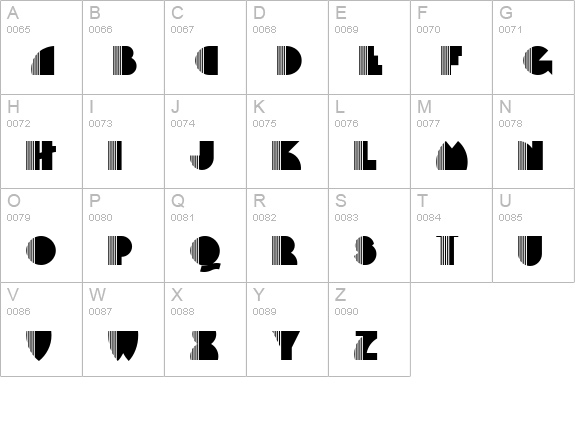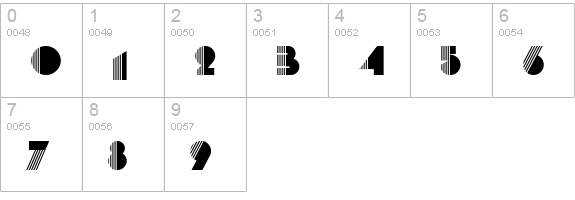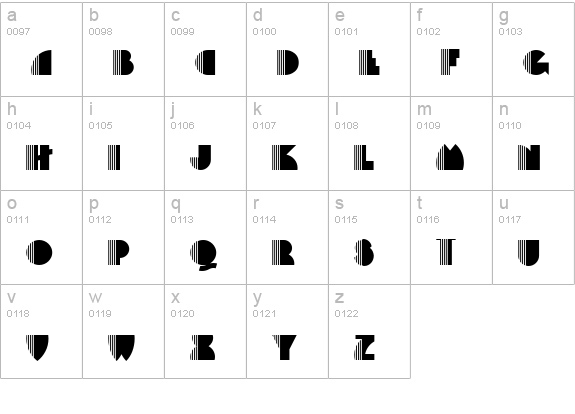
Backstage Pass NF Font Details
Backstage Pass NF font is a stunning display typeface that exudes charm and personality. With its unique handcrafted feel and vintage aesthetic, this font is perfect for adding a touch of retro flair to your designs. Whether you're working on posters, logos, or social media graphics, Backstage Pass NF will make your text stand out in style. The best part? Backstage Pass NF font is completely free to download at FontsMarket.com. That's right, you can easily access this eye-catching font without any cost. So go ahead and elevate your projects with the distinctive charm of Backstage Pass NF font today!